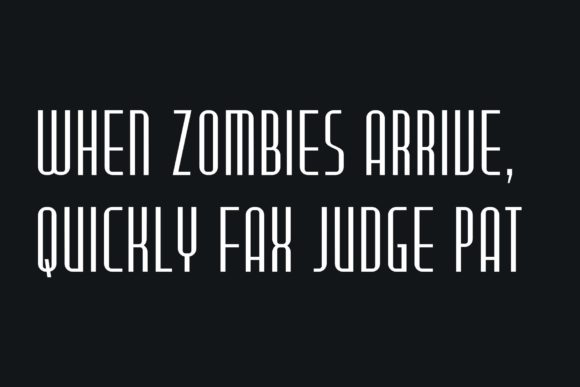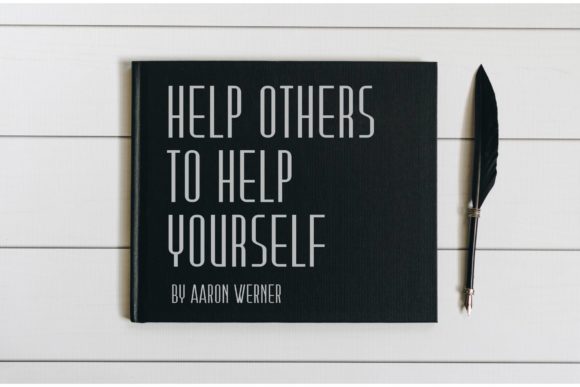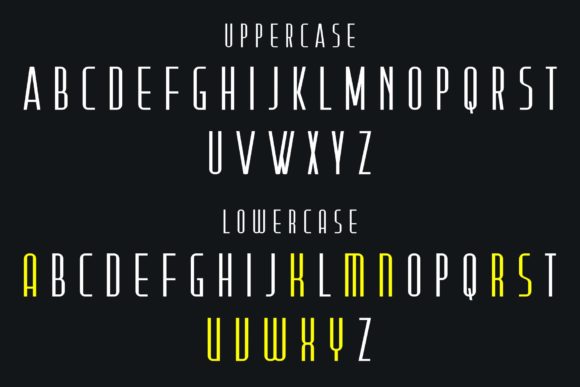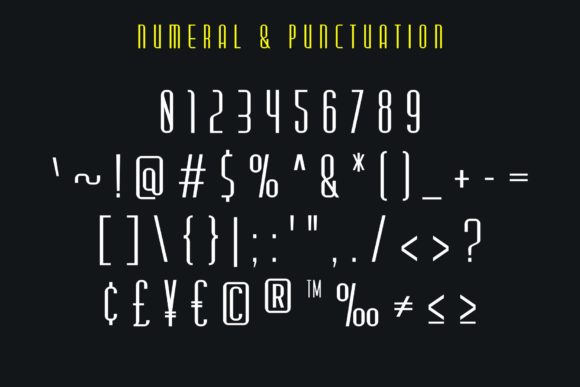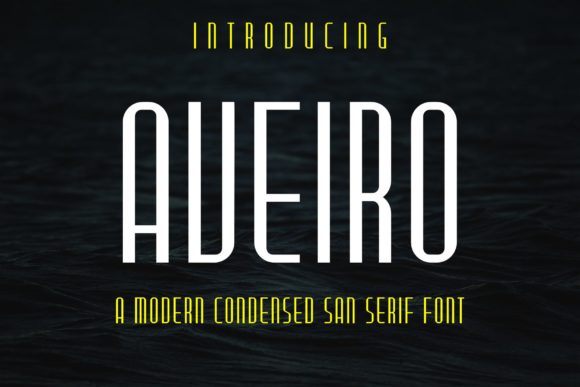
Aveiro Font: The Perfect Blend of Smooth and Sharp for Your Design Needs
Aveiro Font is a modern, condensed sans serif font that has taken the design world by storm. With its perfectly balanced mix of smooth and sharp lines, it has become a go-to choice for designers and crafters looking to elevate their projects. In this article, we’ll dive into the features and benefits of Aveiro Font, and explore how it can complement your design needs.
What is Aveiro Font?
Aveiro Font is a sleek and contemporary sans serif font that boasts a unique blend of smooth and sharp lines. Its condensed design makes it perfect for projects where space is limited, while its clean and crisp lines ensure that your text remains highly legible. Whether you’re working on a branding project, a website, or a craft project, Aveiro Font is sure to make a statement.
Key Features of Aveiro Font
• Modern and Condensed Design: Aveiro Font features a modern, condensed design that makes it perfect for a wide range of projects, from logos and branding to websites and crafts.
• Smooth and Sharp Lines: The font’s unique blend of smooth and sharp lines creates a visually appealing contrast that adds depth and interest to your designs.
• High Legibility: Despite its condensed design, Aveiro Font remains highly legible, even at small sizes.
• Versatile: Aveiro Font is versatile and can be used for a wide range of projects, from digital designs to print materials.
Benefits of Using Aveiro Font
So why choose Aveiro Font for your next project? Here are just a few benefits of using this amazing font:
• Elevate Your Designs: Aveiro Font’s unique blend of smooth and sharp lines adds a touch of sophistication and elegance to your designs.
• Increase Legibility: The font’s high legibility ensures that your text is easy to read, even for audiences with visual impairments.
• Save Time: With Aveiro Font, you can create professional-looking designs in no time. Its versatility and legibility make it perfect for quick turnarounds.
• Stand Out from the Crowd: Aveiro Font’s modern and condensed design ensures that your projects stand out from the crowd and grab attention.
How to Use Aveiro Font in Your Designs
Using Aveiro Font in your designs is easy. Here are a few tips to get you started:
• Pair it with Other Fonts: Aveiro Font pairs well with a wide range of fonts, from serif to script fonts. Experiment with different combinations to find the perfect look for your project.
• Experiment with Colors: Aveiro Font looks great in a variety of colors, from bold and bright to muted and pastel. Experiment with different colors to find the perfect look for your project.
• Use it for Headings and Body Text: Aveiro Font is perfect for both headings and body text. Use it to create a cohesive look throughout your project.
Who is Aveiro Font for?
Aveiro Font is perfect for a wide range of designers and crafters, including:
• Graphic Designers: Aveiro Font is perfect for graphic designers looking to create professional-looking logos, branding, and marketing materials.
• Web Designers: The font’s clean and crisp lines make it perfect for web designers looking to create modern and responsive websites.
• Crafters: Aveiro Font is also perfect for crafters looking to add a touch of elegance and sophistication to their projects, from papercraft to sewing.
In conclusion, Aveiro Font is a modern, condensed sans serif font that is perfect for designers and crafters looking to elevate their projects. With its perfectly balanced mix of smooth and sharp lines, it adds a touch of sophistication and elegance to any design. Whether you’re working on a branding project, a website, or a craft project, Aveiro Font is sure to make a statement.